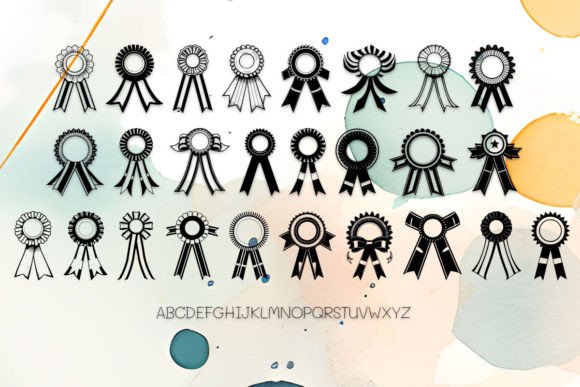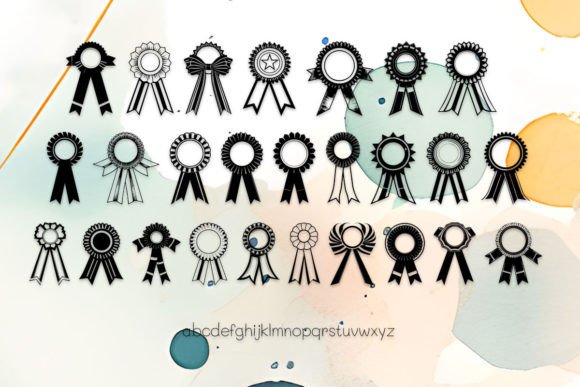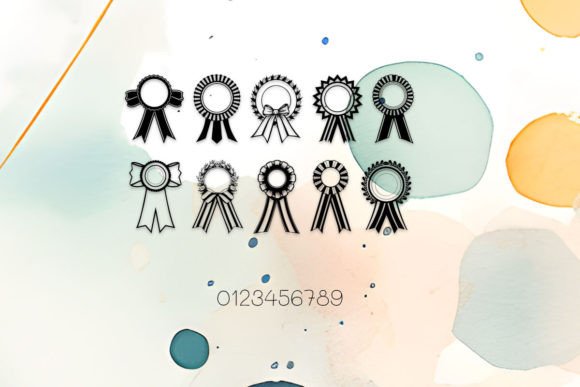
Award Ribbon Font: Elevate Your Designs with Elegance and Distinction
Are you a designer or crafter looking to add a touch of sophistication and prestige to your projects? Look no further than the Award Ribbon Font, a stunning collection of elegant award ribbons that will take your designs to the next level. This comprehensive font set includes 26 uppercase, 26 lowercase, and 10 numbers (0-9) of beautifully crafted award ribbons, perfect for adding a sense of achievement and recognition to your work.
What is Award Ribbon Font?
Award Ribbon Font is a unique and stylish dingbat font that features intricate award ribbon designs. Each character in the font set is carefully crafted to resemble a distinct award ribbon, complete with elegant folds, smooth curves, and a sense of luxury. The font is designed to be versatile and can be used for a wide range of projects, from certificates and awards to packaging and branding.
Key Features of Award Ribbon Font
- Comprehensive character set: The font includes 26 uppercase, 26 lowercase, and 10 numbers (0-9) of award ribbon designs, giving you a wide range of options to choose from.
- Elegant and sophisticated: The award ribbons are designed to be elegant and sophisticated, making them perfect for high-end designs and projects that require a sense of luxury.
- Scalable: The font is scalable, allowing you to use it for projects of all sizes, from business cards to billboards.
How to Use Award Ribbon Font
Here are a few ideas for using Award Ribbon Font:
- Certificates and awards: Use the font to create custom certificates and awards for achievements, events, and milestones.
- Packaging and branding: Add a touch of elegance and sophistication to your packaging and branding with the award ribbon font.
- Event design: Use the font to create eye-catching event designs, such as invitations, programs, and signage.
- Digital graphics: Create stunning digital graphics, such as social media graphics, blog headers, and email newsletters.
Benefits of Using Award Ribbon Font
There are many benefits to using Award Ribbon Font in your designs. Here are a few:
- Adds elegance and sophistication: The font adds a touch of elegance and sophistication to your designs, making them perfect for high-end projects.
- Creates a sense of achievement: The award ribbon designs create a sense of achievement and recognition, making them perfect for certificates, awards, and other types of recognition.
- Versatile: The font is versatile and can be used for a wide range of projects, from print to digital.
Award Ribbon Font is a stunning collection of elegant award ribbons that will elevate your designs to the next level. With its comprehensive character set, elegant designs, and ease of use, this font is perfect for designers and crafters looking to add a touch of sophistication and prestige to their projects. Whether you’re creating certificates, awards, packaging, or digital graphics, Award Ribbon Font is the perfect choice.